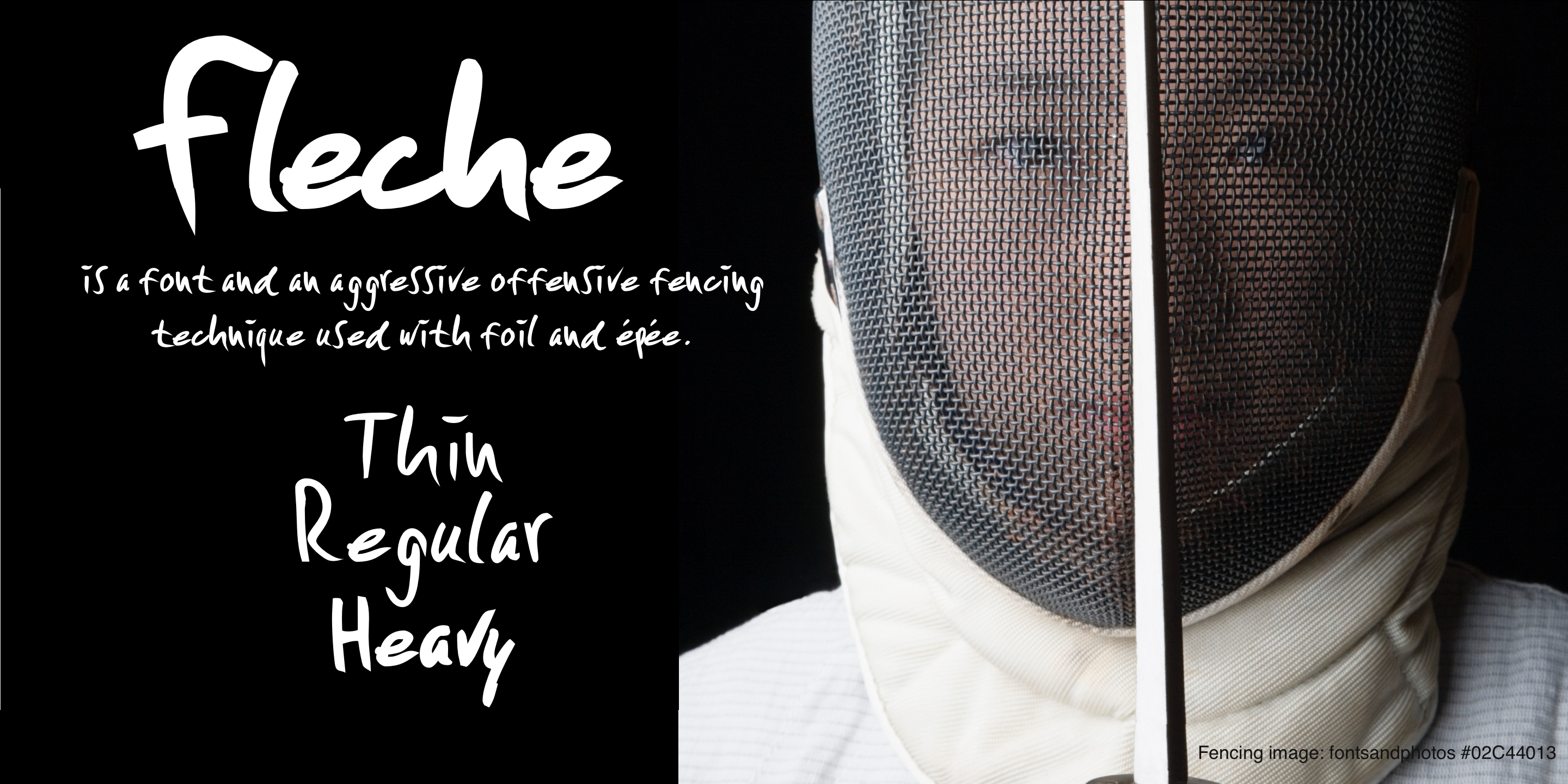
Fleche Font is perfect for dynamic sports branding, fitness center logos, athletic apparel designs, racing event posters, motivational fitness campaigns, sports equipment packaging, energy drink labels, competitive team merchandise, and high-performance training materials.
What makes Fleche Font so exciting is its dynamic speed and directional energy that captures the essence of movement and athletic performance. This powerful typeface combines sharp angular precision with forward momentum, creating an unstoppable visual force that embodies speed, determination, and competitive spirit that resonates with athletes and performance-driven audiences.
Fleche Font family includes multiple speed variations: Regular weight, Bold racing style, Light swift version, Condensed arrow format, Extended velocity edition, Slanted motion effects, Outline trajectory design, and Shadow speed option. Each family member maintains the signature directional power while offering versatility for different sports design applications and performance-focused branding projects.
Accelerate your designs with Fleche Font Free Download - a typeface that brings dynamic speed and athletic precision to your most energetic creative projects. Whether you're designing sports team identities, fitness marketing materials, or competitive event promotions, this font delivers authentic speed appeal that connects with audiences who value performance and athletic excellence.
The versatility of Fleche Font dominates both digital and print sports applications. It performs exceptionally in athletic websites, fitness mobile apps, sports merchandise designs, and stadium signage, maintaining its dynamic speed character across all platforms. The font's aerodynamic spacing ensures excellent readability while preserving its directional personality and competitive edge.
Sports industry professionals consistently choose Fleche Font for projects requiring athletic credibility and performance appeal. Its powerful character makes it ideal for brands focused on speed, competition, and athletic achievement, helping establish authentic connections with audiences who value fitness, performance, and competitive spirit in their lifestyle choices.